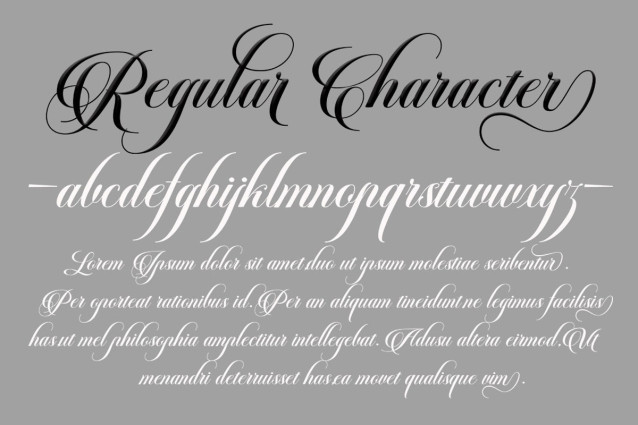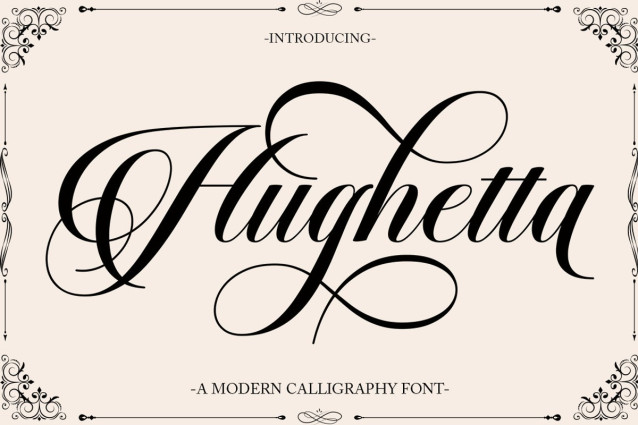
Hughetta Font
Hughetta Font is the font of choice for writing things beyond words. This typeface is designed with great detail to convey stylish elegance. So, it can be said, the character of the transformation is very beautiful, a kind of classic ornamental copper script.
Hughetta provides alternative variants of most fonts, binders and many calligraphy tips, ideal for elegant labels, high-end packaging, stationery and composition for select brands, beautiful titles, paragraphs, fonts and short text, meant to be read only with eyes or meant to whisper into someone’s ear.
Hughetta has 368 , including multiple language support. It features OpenType with alternative styles and elegant binding. The OpenType features don’t work automatically, but you can access them manually and for best results your creativity will be required in combining variations of these Glyphs. And also a touch of ornament makes this font look elegant.